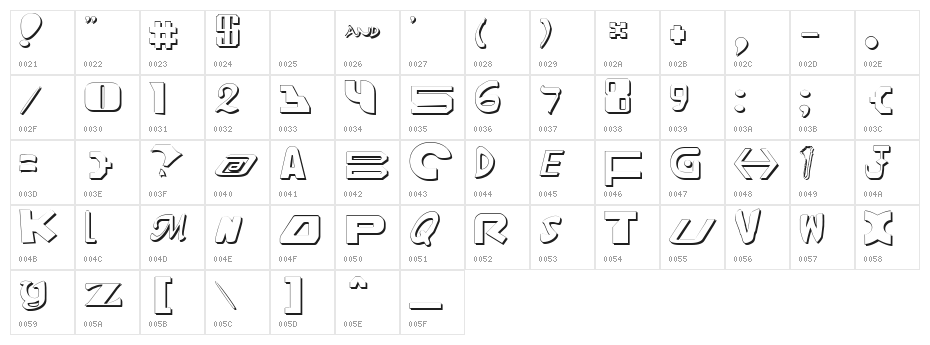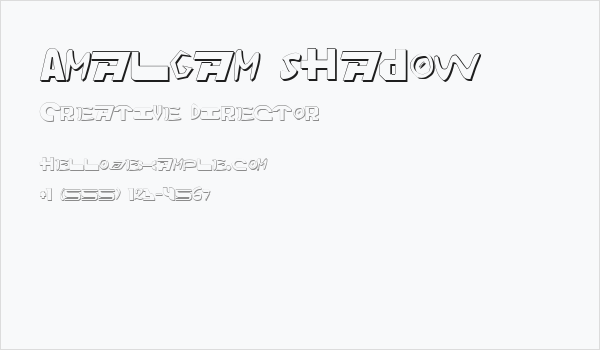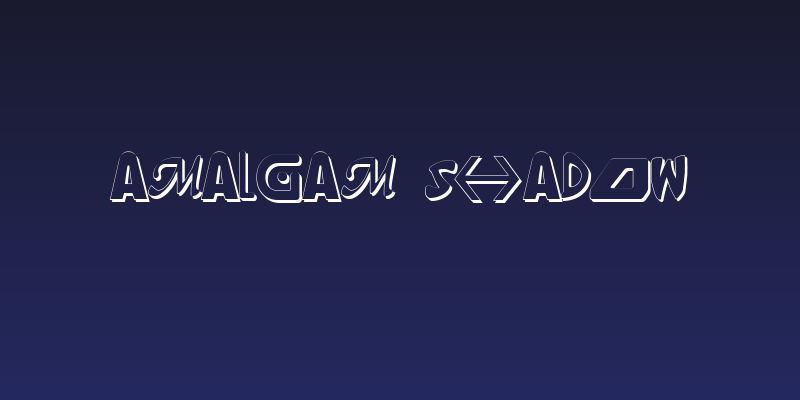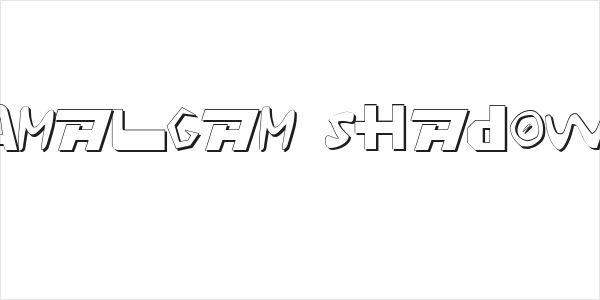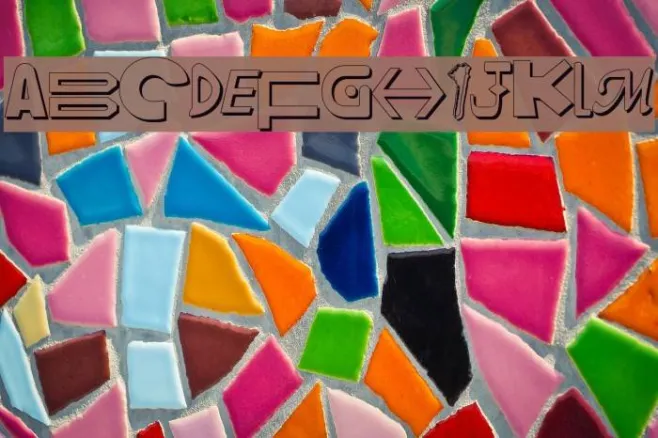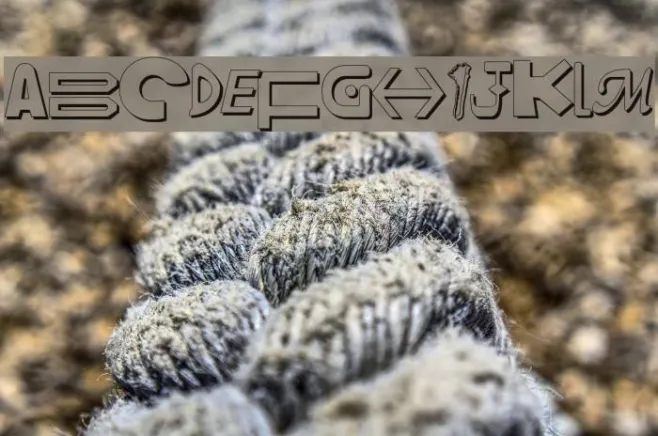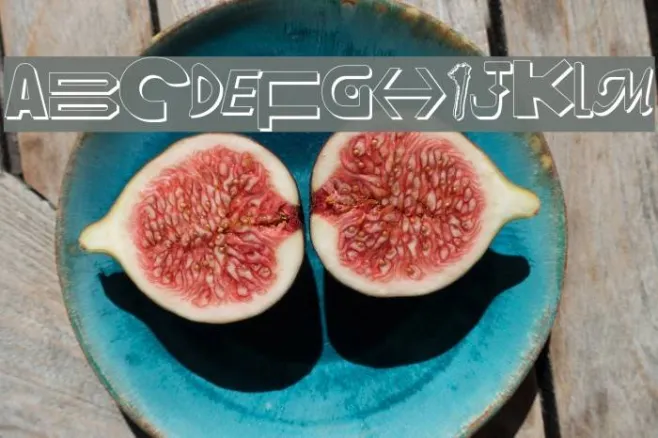
Amalgam Shadow Font
Amalgam Shadow Description
This font features a bold and dynamic design with a distinct shadow effect that gives each character a three-dimensional appearance. The uppercase letters are crafted with geometric precision, incorporating sharp angles and unique cutouts that add a futuristic flair. The lowercase letters maintain the same boldness, ensuring consistency across text. Numbers are equally striking, with a robust presence that makes them stand out. Special characters are designed to complement the overall style, enhancing the font's versatility. The shadow effect adds depth, making it ideal for eye-catching designs.
| Proposed Projects | Ideal for posters, logos, video game graphics, and any project requiring a bold, standout typeface. |